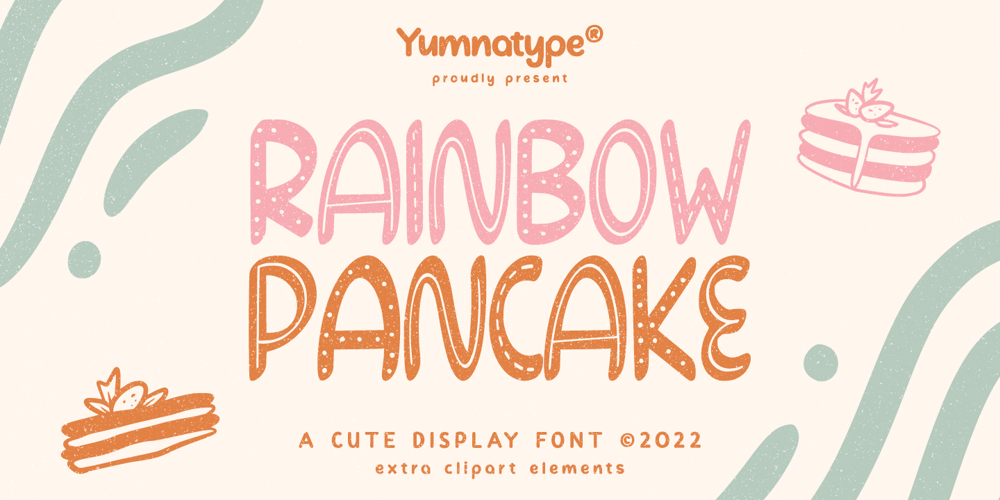
Rainbow Pancake Font Family was designed by Donis Miftahudin and published by Yumna Type. Rainbow Pancake contains 2 styles and family package options. Looking for a font with playful style? This is it.Rainbow Pancake is a display font that generates fun and cute feels. What’s particularly nice about this font is the readability and the weight that bring strength when you apply it. This font makes designing look easy to do. As a special extras you will get 15 illustrations that you can to beautify your designs. Features: Stylistic Sets Multilingual Supports Uppercase and lowercase PUA Encoded Numerals and Punctuation It is can be used on your branding, logos, social media quotes, stickers, posters, wall art, merchandise, social media, and many more. Get more inspiration about how to use it by seeing the font preview.Thank you for purchasing our fonts. If you have any further questions, don’t hesitate to contact us. Happy Designing.